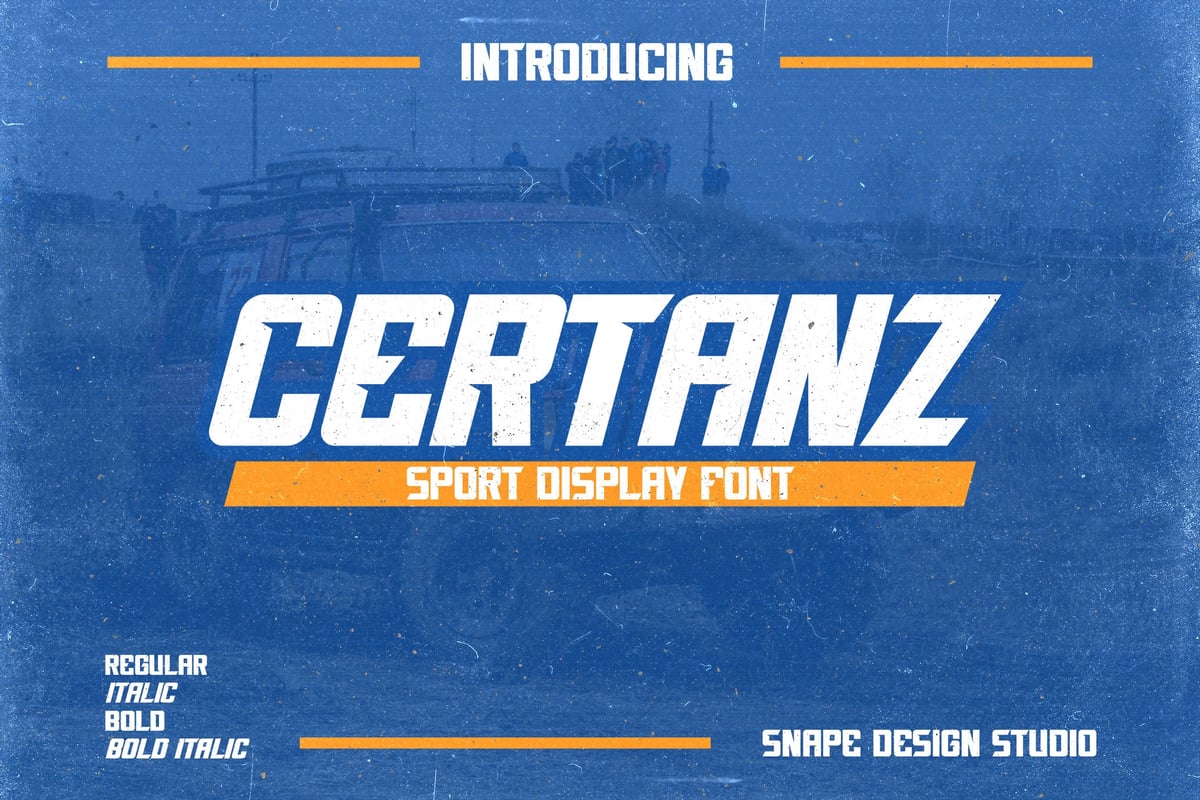
Certanz - Sport Font
Certanz delivers powerful sports typography that commands attention and energizes any athletic-inspired project. This bold sport font is engineered to highlight designs that demand strength and impact. Perfect for adding a vibrant, energetic touch to your sports-themed creations. Ideal applications include sport design projects, team branding, jersey lettering, league graphics, movie titles, documentaries, film projects, logos, posters, gaming interfaces, book covers, headlines, and countless ot...